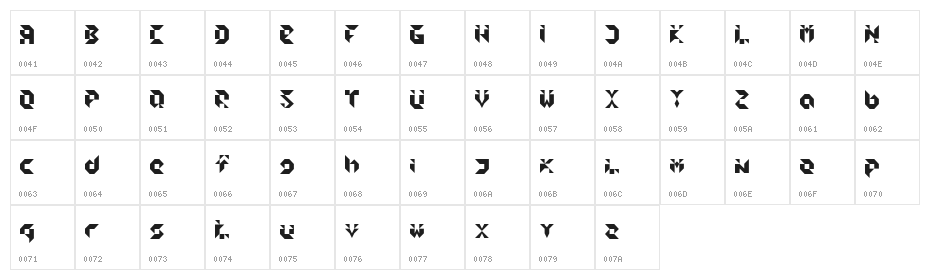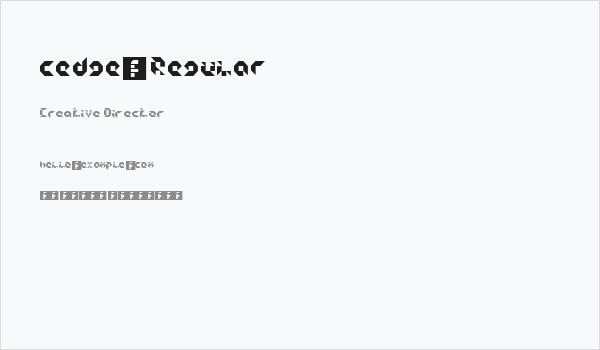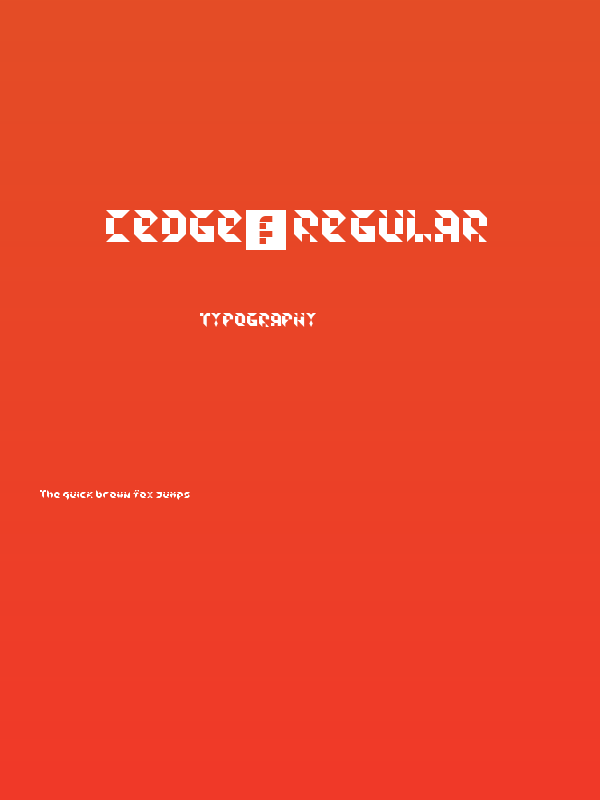
cedge1 Regular Font
cedge1 Regular Description
This font features a bold and geometric design, characterized by sharp angles and a blocky appearance. Each letter is crafted with precision, creating a futuristic and edgy look. The uppercase and lowercase letters maintain a consistent style, with angular cuts and a strong presence. The numbers and special characters follow the same design principles, ensuring uniformity across all glyphs. This font is ideal for projects that require a modern and striking aesthetic, such as technology-related branding or sci-fi themed designs.
| Proposed Projects | Ideal for technology branding, sci-fi themes, and modern graphic designs. |